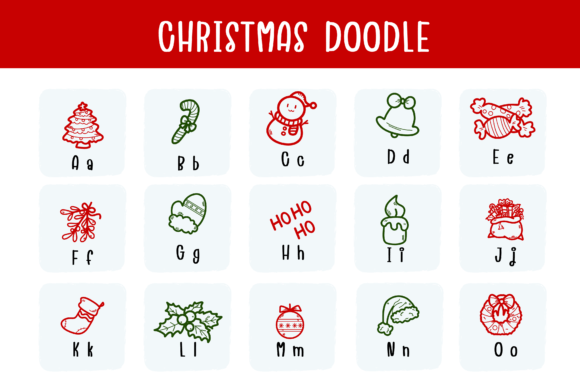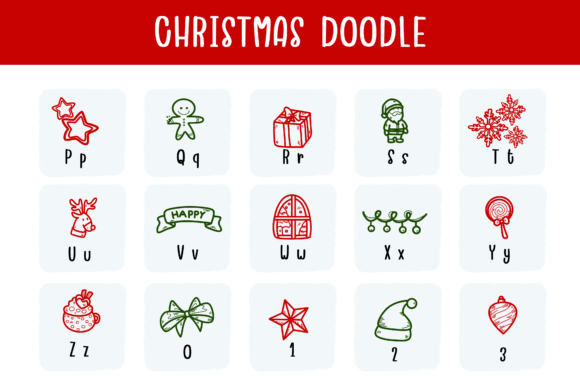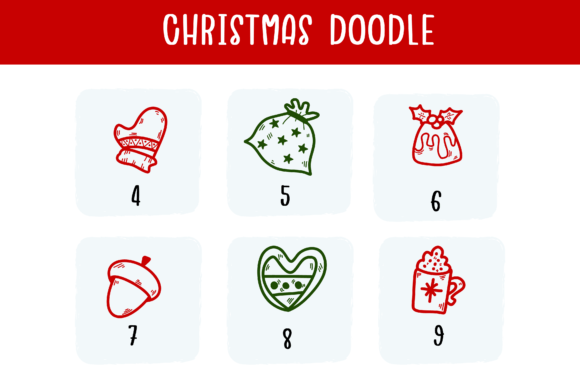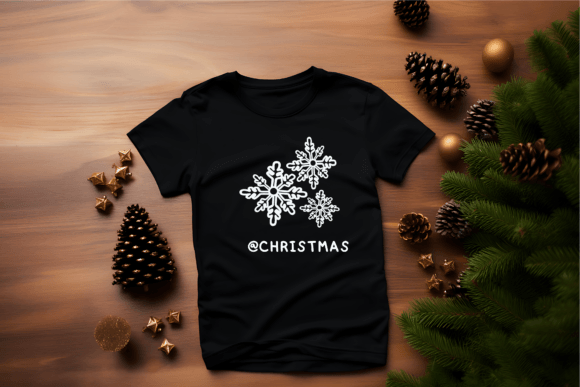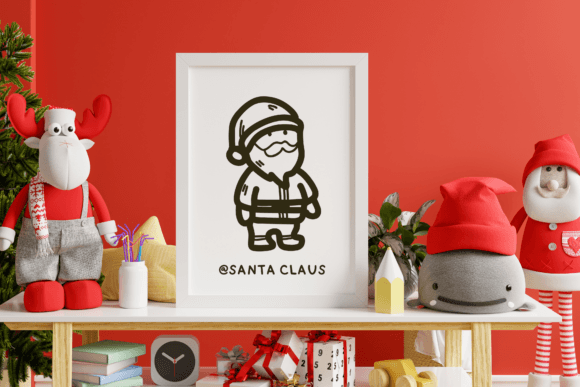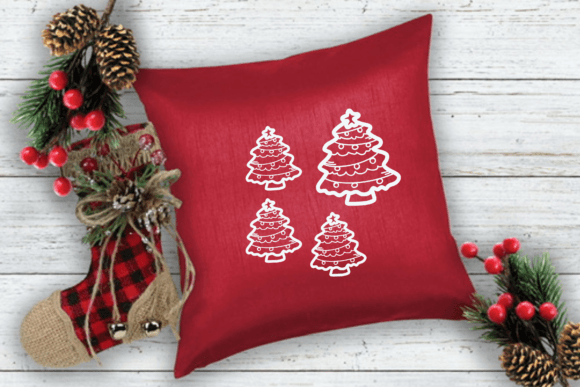
The Magic of Christmas Doodle Font: Bringing Holiday Cheer to Your Designs
As a designer, there’s nothing quite like the thrill of brainstorming a new project and envisioning the perfect way to bring it to life. For me, that moment usually starts with a spark of inspiration, a dash of creativity, and a pinch of festive fun. And what’s more festive than Christmas? That’s why I’m excited to share with you the wonders of the Christmas Doodle Font – a special font that’s sure to add a dash of holiday cheer to your projects.
This delightful font is filled with fun symbols like gifts, stockings, and Santa hats, making each letter a cute Christmas picture in itself. The Christmas Doodle Font is the perfect tool for designers looking to add a touch of whimsy and personality to their work. Whether you’re creating holiday cards, gift tags, or even a festive website, this font is sure to bring a smile to your face and a dash of holiday magic to your designs.
Christmas Doodle Font Key Features
- Unique Hand-Drawn Design: The Christmas Doodle Font features a whimsical, hand-drawn design that adds a touch of personality to any holiday-themed project.
- Customizable: The font includes various doodle elements, allowing users to mix and match to create unique and personalized designs.
Christmas Doodle Font Review
Overall, I found the Christmas Doodle Font to be a fun and festive addition to any holiday project. ✨ Its playful, hand-drawn style adds a touch of whimsy to text, making it perfect for social media posts, party invitations, and more.
The font’s customization options are another highlight. ✨ It’s available in a range of sizes, and the color palette is highly customizable, allowing you to match the font to your project’s color scheme.
However, I did encounter some limitations. ⚠️ The font’s legibility can be an issue, particularly at smaller sizes. This may make it difficult to read for some viewers, especially if they have vision impairments. Additionally, the font’s inconsistent spacing can make it challenging to align text properly.
- Fun and festive design
- Customizable size and color palette
- Perfect for social media and party invitations
In conclusion, the Christmas Doodle Font is a great choice for those looking to add a playful touch to their holiday projects. While it may have some limitations, its unique design and customization options make it a worthwhile addition to any designer’s toolkit.
The Christmas Doodle Font is perfect for:
- Festive invitations and cards
- Christmas-themed social